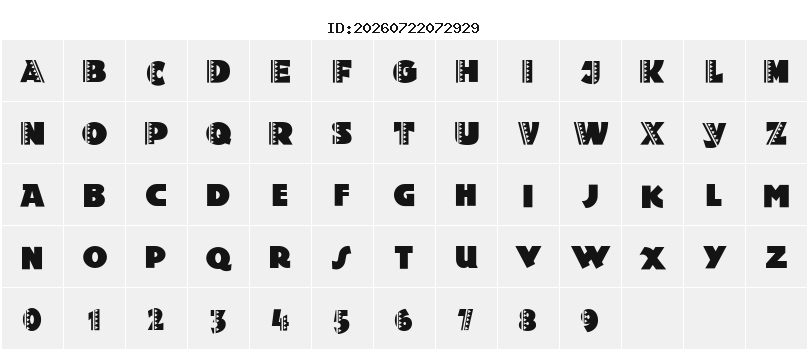
• Font Name: HolyRavioli
• Manufacturer: Nick Curtis
HolyRavioli.ttf is a modern, elegant sans-serif font designed for ultimate readability and visual harmony. Perfect for branding, headlines, web design, and print materials.